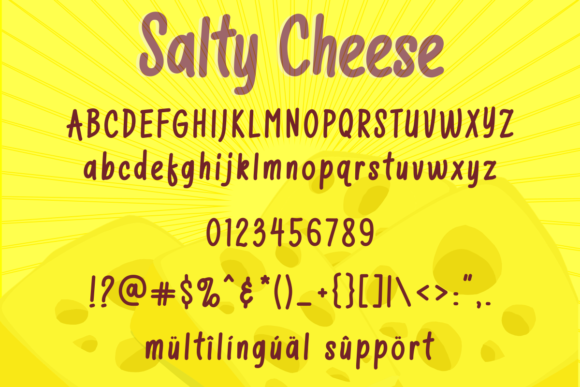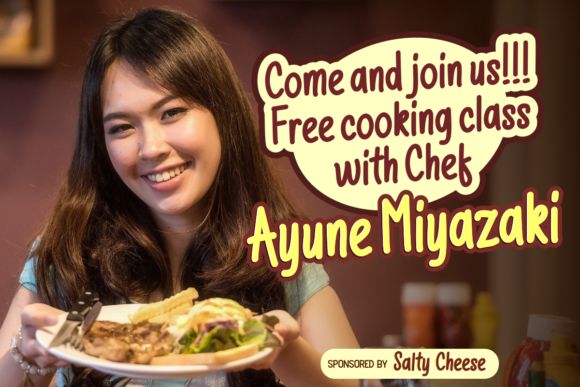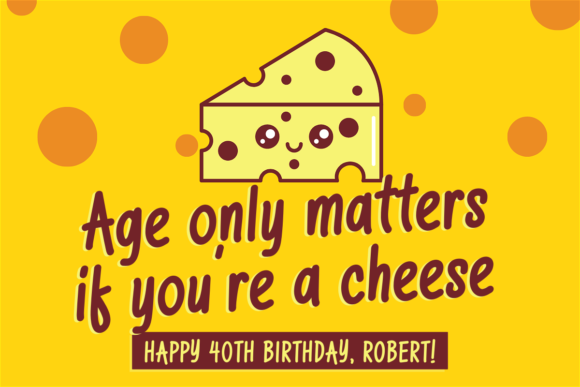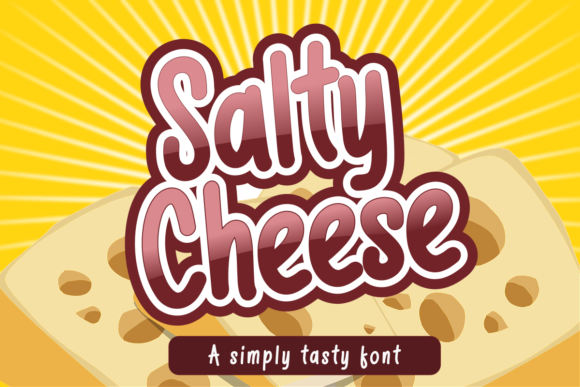
Introduction to Salty Cheese Font
Salty Cheese is a simple and tasty handwritten font, perfect for a wide variety of designs.
It works great for quotes, social media, youtube thumbnails, book covers, cards, merchandises and many more .
Key Features of Salty Cheese Font
Why Choose Salty Cheese Font?
Salty Cheese Font offers exceptional quality and versatility, making it a valuable addition to your design toolkit. Whether you’re creating for personal projects or commercial use, Salty Cheese Font delivers professional results.